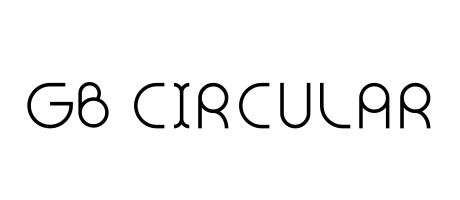
GB
By Gbasire
GB Circular, a font name echoing its design, features rounded terminals and a consistent stroke weight, giving it a clean, modern feel. Its lowercase letters maintain the circular motif, creating a cohesive and slightly playful aesthetic. The overall impression is one of simplicity with a touch of geometric elegance.